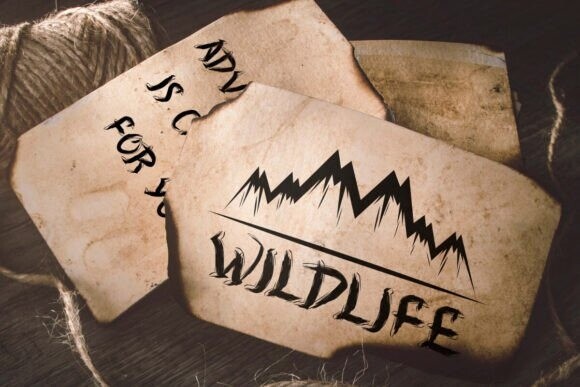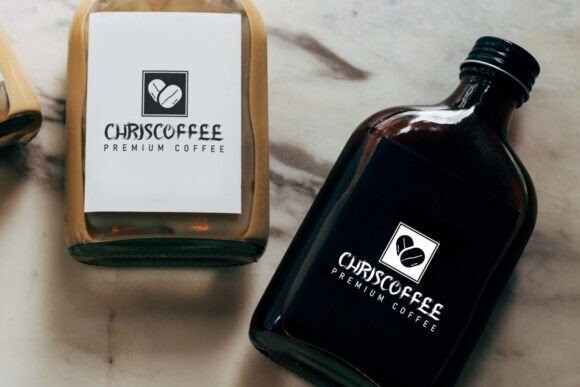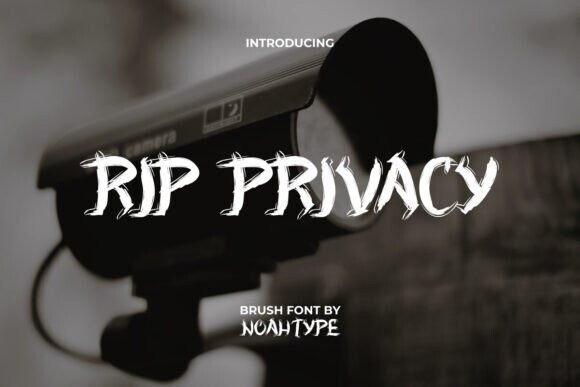
Rip Privacy Font
Designer: noahtype
RIP Privacy Font is a metal grunge brush display font with mysterious vibes. This font is made with a messy brush texture and is still easy to read. This brush font is for anyone who are needing of special scary look on their designs. This brush font will be awesome for accessories, design graphic, fashion, game, magazine, movie, sport, photography, writer, and more!